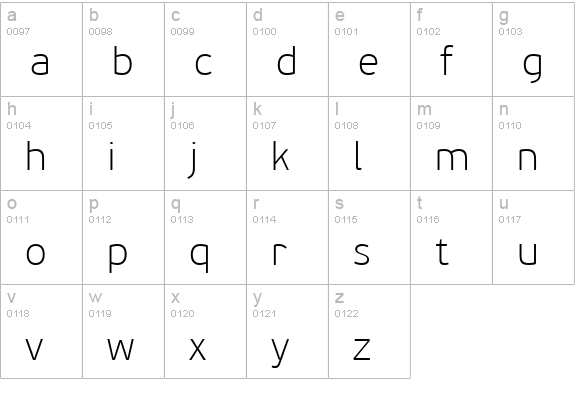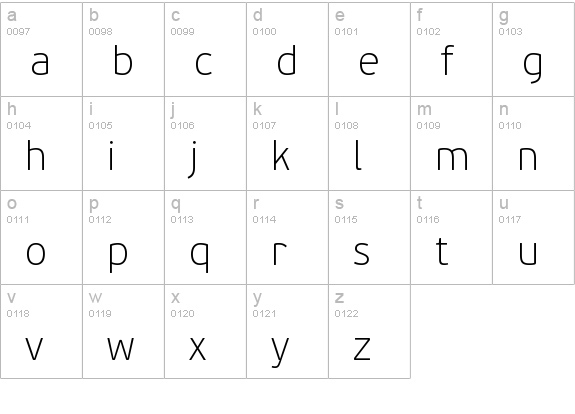
PFBeauSansPro-Thin is a delicate, low-contrast variant in the PFBeauSansPro typeface family \xE2\x80\x94 well suited to fashion editorial, minimal branding, and high-contrast display.
PFBeauSansPro-Thin is a modern and elegant sans-serif font that exudes sophistication and style. With its thin and sleek design, this typeface is perfect for creating minimalist and refined designs. The clean lines and graceful curves of PFBeauSansPro-Thin make it ideal for various projects, from branding to editorial design. And the best part is, PFBeauSansPro-Thin is available for free download at FontsMarket.com. This means that you can easily access this high-quality font without any cost, making it a valuable addition to your font collection. Don't miss out on the opportunity to elevate your designs with PFBeauSansPro-Thin and bring a touch of class to your projects.